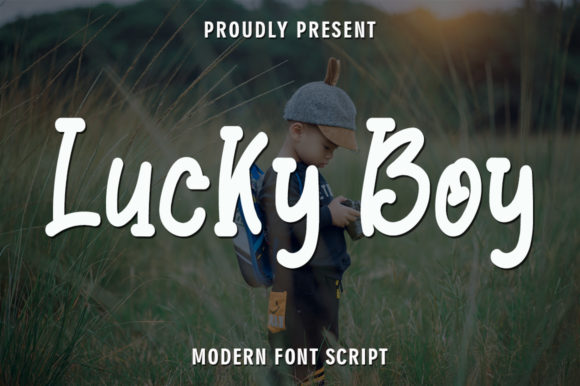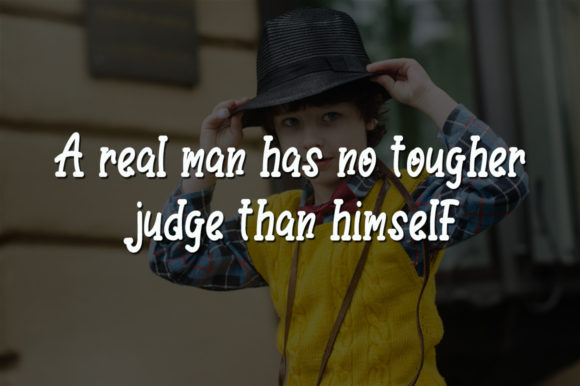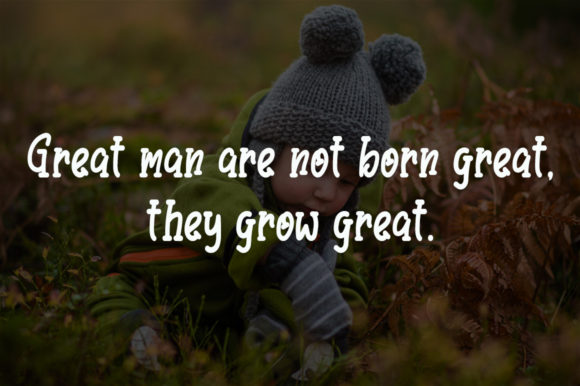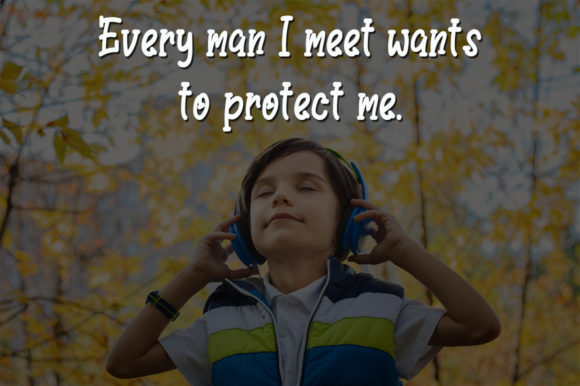
Lucky Boy Font: Cute & Playful Display Font for Kids Crafts!
About the Lucky Boy Font
Explore the possibilities with Lucky Boy Font, a font that offers both beauty and functionality. Lucky Boy is a fun and quirky looking display font. It will look great on any children or school project, so employ it confidently and notice how your designs come alive!
Lucky Boy’s playful character makes it ideal for headlines, logos for children’s products, and playful branding projects. It works exceptionally well in posters and packaging where a quirky, eye-catching aesthetic is desired. However, its unique letterforms are less suitable for body text or UI elements requiring high readability.
The font’s inherent energy is best balanced with a clean sans-serif like Open Sans or a more refined serif like Lora for a sophisticated contrast. Pairing Lucky Boy with a script font could create a whimsical feel, but choose a legible script to maintain balance. Avoid pairing it with other overly decorative fonts, as this could result in visual clutter.
Lucky Boy projects a friendly, energetic personality, perfectly suited for brands targeting a younger demographic or those emphasizing fun and creativity.
Lucky Boy Font Usage Examples
Lucky Boy Font Example